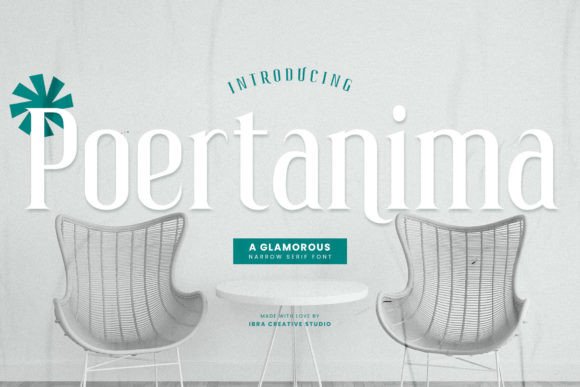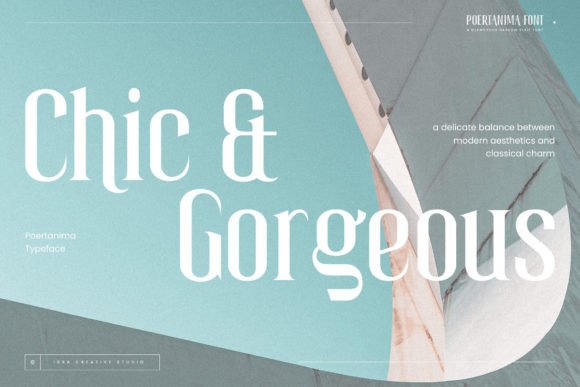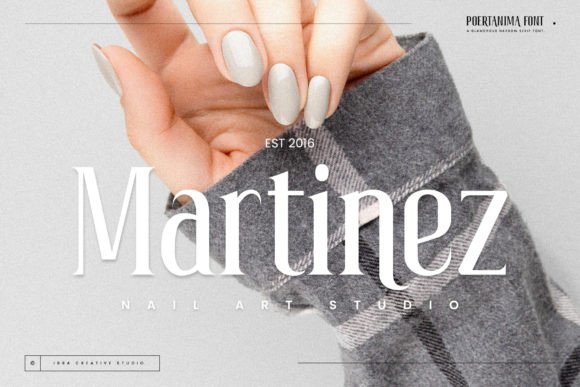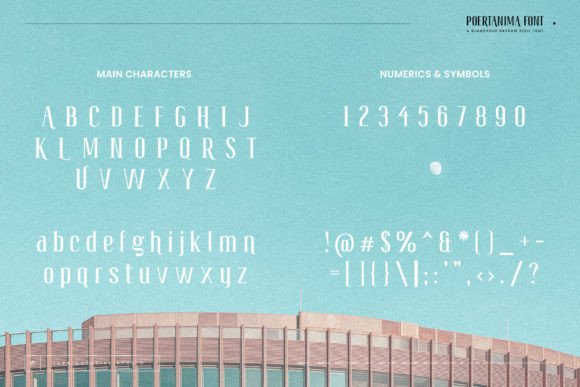
Poertanima Font
About the Poertanima Font
The wait is over! The incredible Poertanima Font is now available for your design toolkit. Poertanima, a glamorous narrow serif font, exudes sophistication and timeless elegance. Its slender and refined letterforms boast a delicate balance between modern aesthetics and classical charm, making it a perfect choice for projects that demand a touch of luxury. With its gracefully tapered serifs and intricate detailing, Poertanima captures attention with an air of exclusivity, making it ideal for high-end branding, editorial design, or any context where a touch of glamour is desired.
Poertanima’s elegant narrowness makes it exceptionally suitable for headlines, logos, and short text blocks in high-end branding materials, invitations, and fashion publications. Its refined serifs lend themselves well to packaging design where a touch of luxury is desired. However, its low x-height and narrow letterforms render it less suitable for body text or extended reading; using it for lengthy paragraphs would severely impact readability.
Pairing Poertanima effectively requires considering its inherent elegance. A clean, geometric sans-serif like Futura or a modern, neutral sans-serif like Lato would create a balanced and contemporary feel. For a more traditional approach, a classic serif such as Garamond or a slightly more playful serif like Playfair Display could work well, though care should be taken to avoid overwhelming the Poertanima’s delicate features.
The overall personality of Poertanima is sophisticated and refined, exuding an air of timeless elegance and subtle luxury. It is best suited for brands and projects that aim for a high-end, prestigious image, avoiding contexts that demand a more approachable or informal tone.
Poertanima Font Usage Examples
Poertanima Font Example